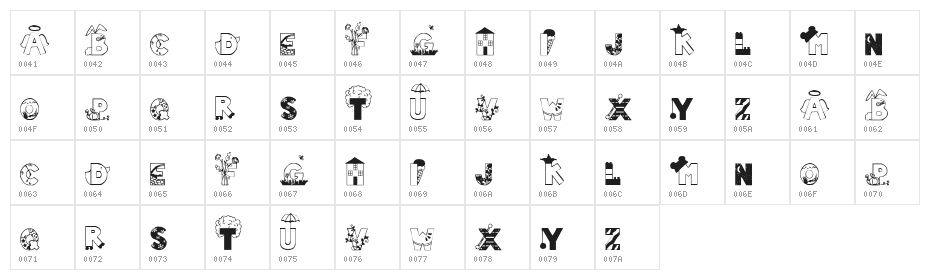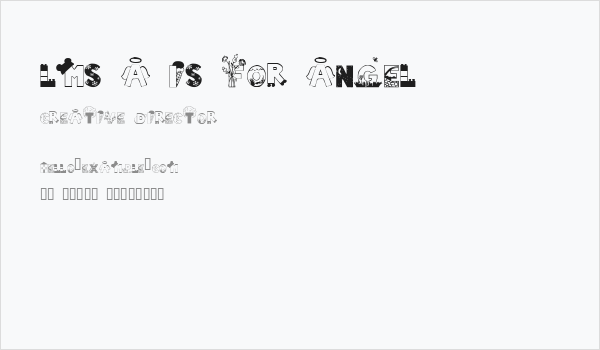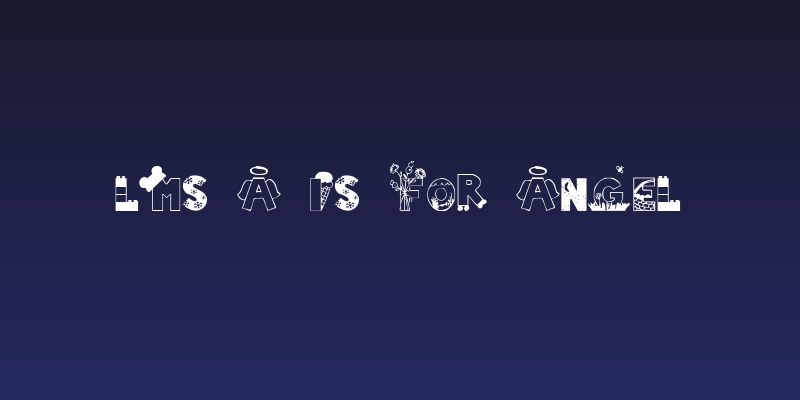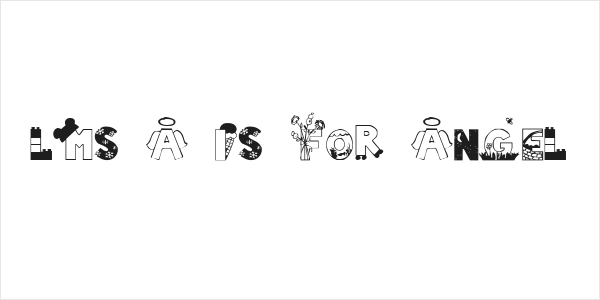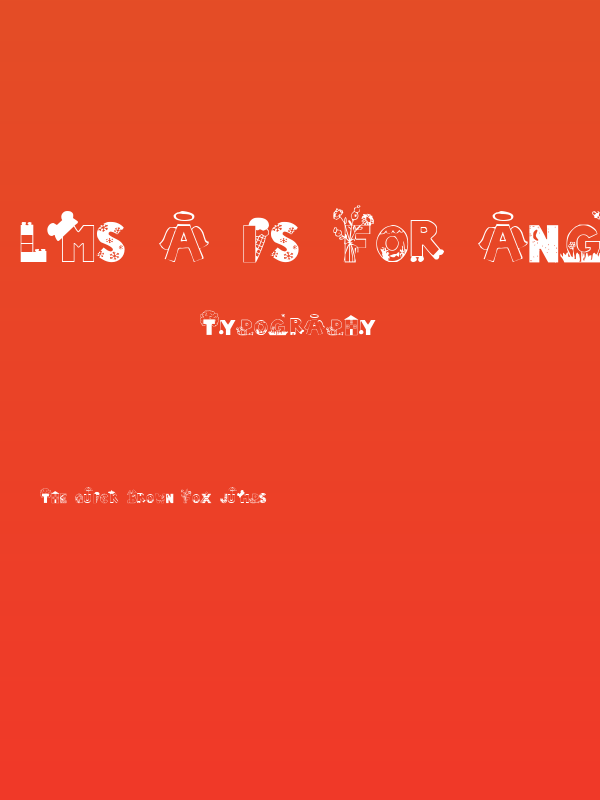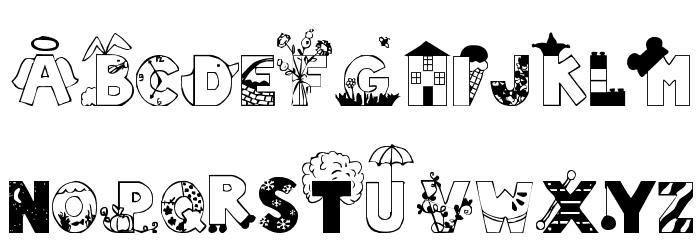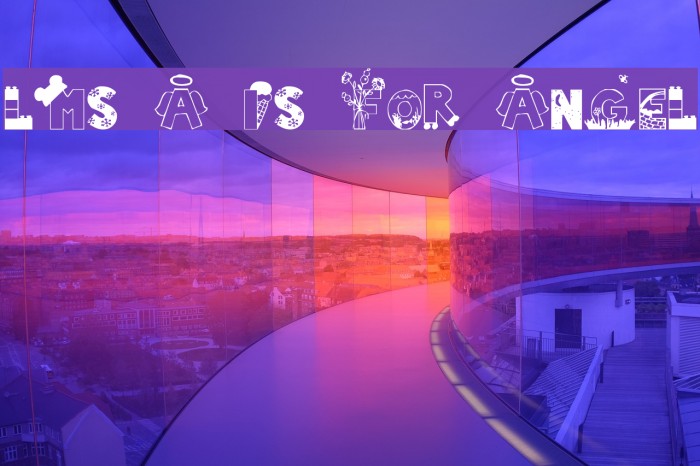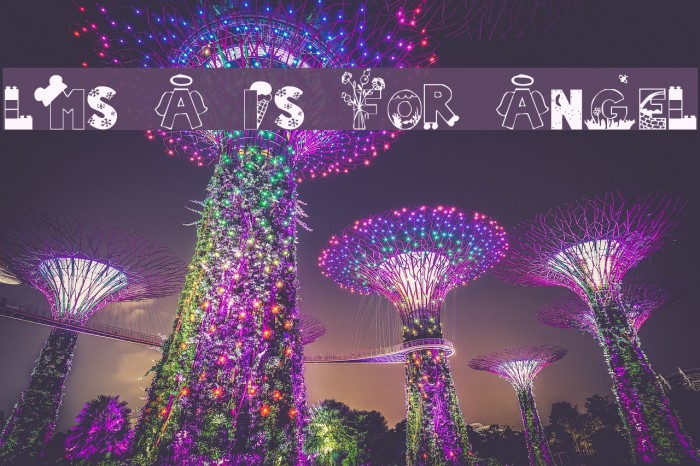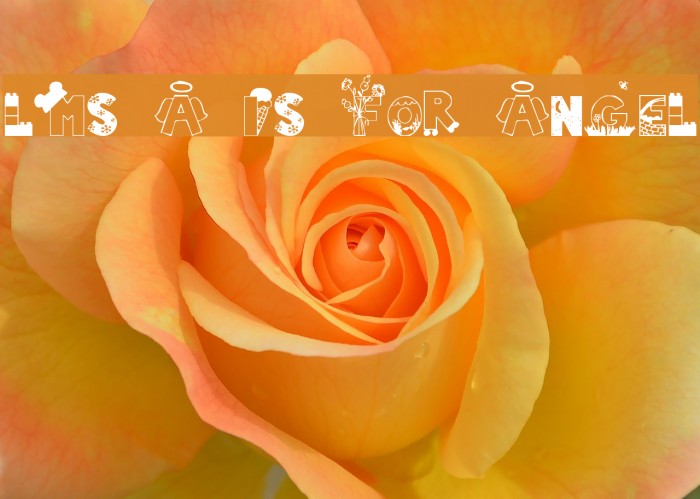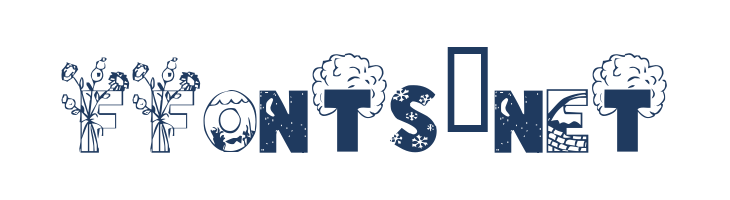
LMS A Is For Angel Font
LMS A Is For Angel Description
This playful and whimsical font features a variety of decorative elements integrated into each letter, creating a unique and engaging visual experience. Each character is adorned with thematic illustrations, such as trees, houses, and stars, adding a storybook charm. The letters are bold and eye-catching, with a mix of solid and patterned fills that enhance their decorative appeal. This font is perfect for creative projects that require a touch of fun and imagination, making it ideal for children's books, playful branding, or event invitations.
| Overall Style | Playful, Whimsical, Decorative |
| Proposed Projects | Ideal for children's books, playful branding, event invitations, and creative posters. |